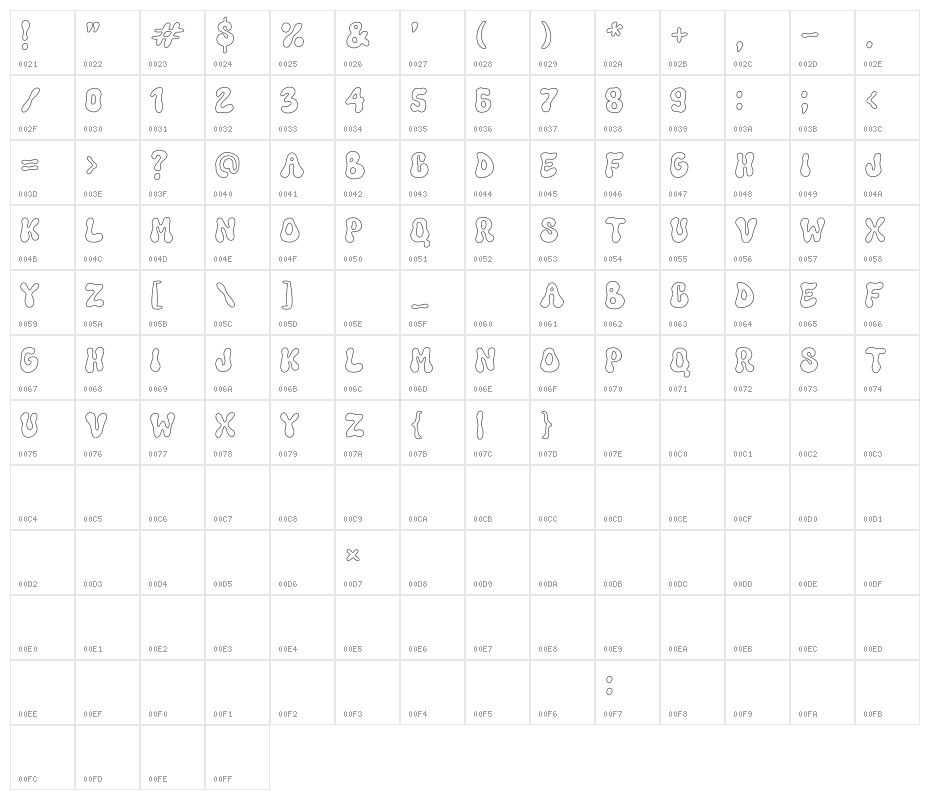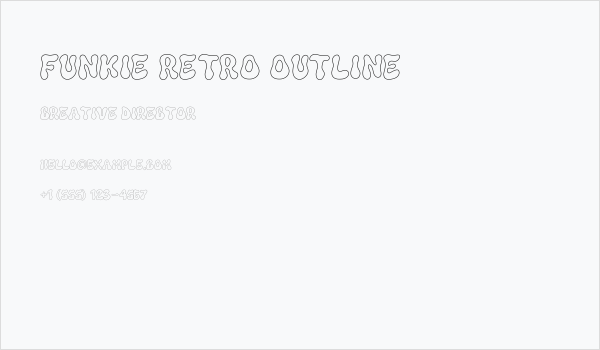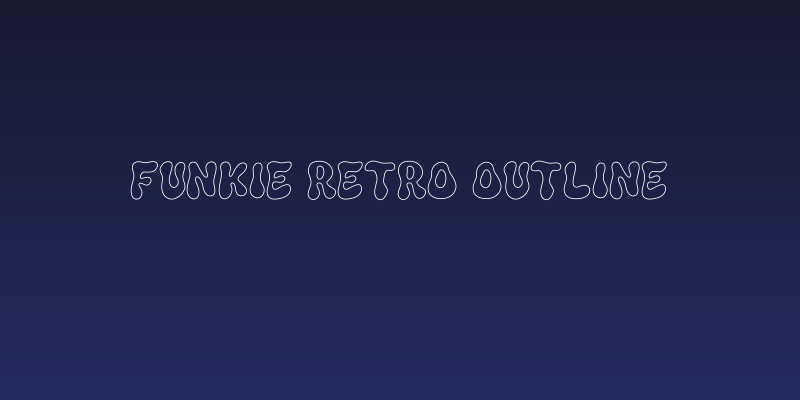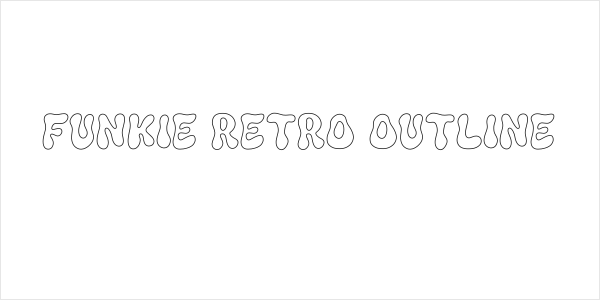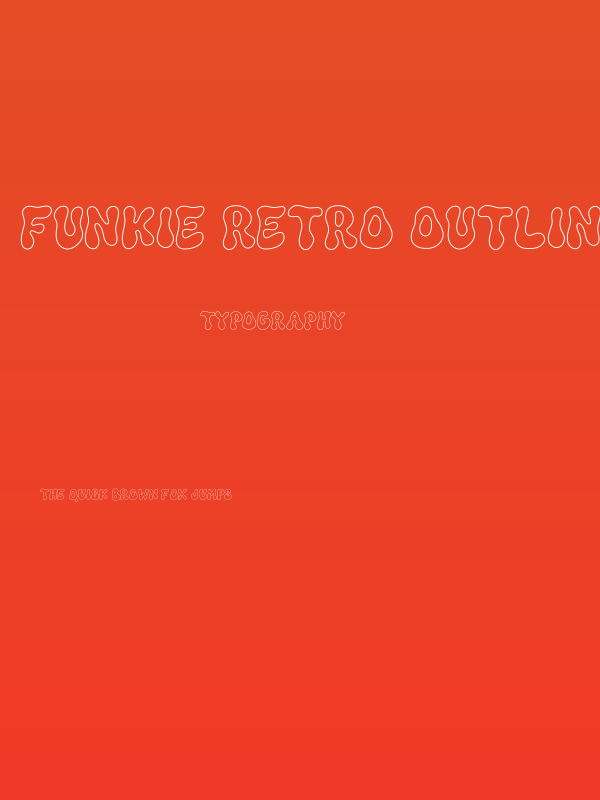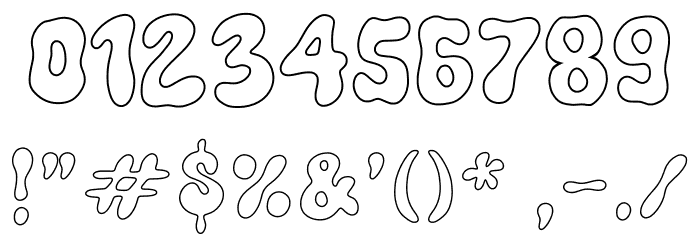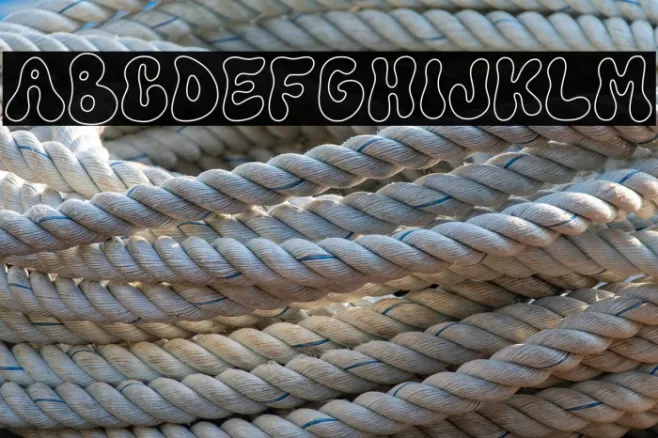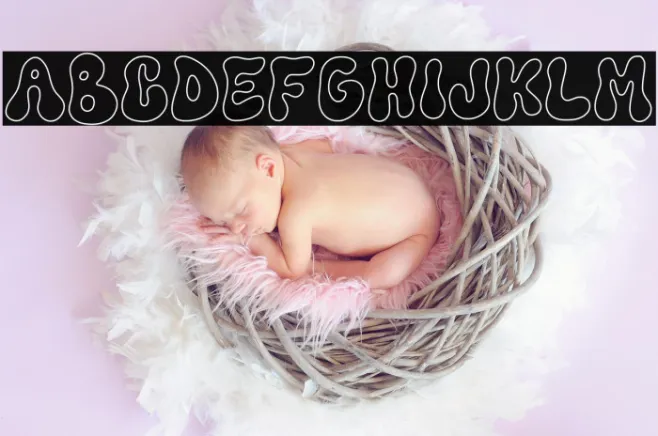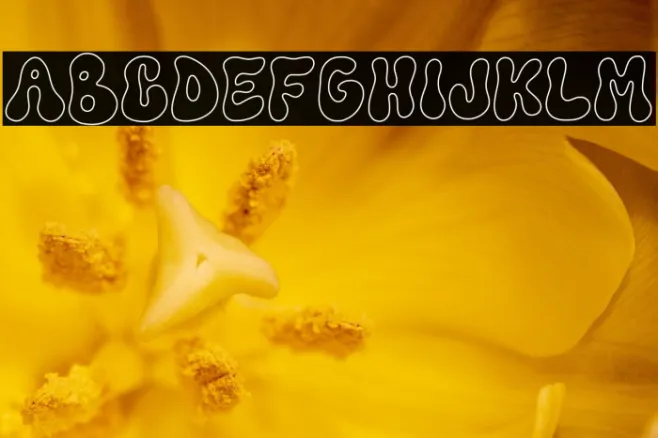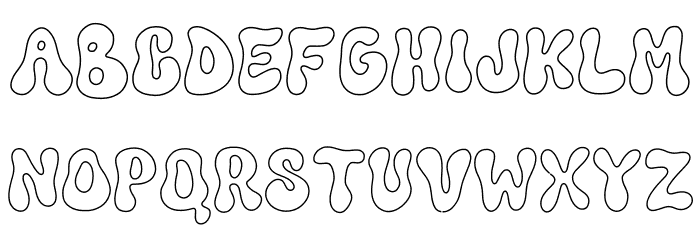
Funkie Retro Outline Font
Funkie Retro Outline Description
This font features a playful and retro outline style, characterized by its bold, bubble-like letterforms. Each character is defined by a thick, continuous outline that gives it a distinct, eye-catching appearance. The font maintains a consistent stroke width throughout, contributing to its uniform and cohesive look. Its whimsical and fun aesthetic makes it ideal for projects that require a touch of nostalgia or a vibrant, youthful energy. The characters are well-spaced, ensuring readability while maintaining their unique style. This font is perfect for creative and artistic designs that aim to stand out.
| Overall Style | Retro, Playful |
| Proposed Projects | Ideal for posters, album covers, children's books, and playful branding. |